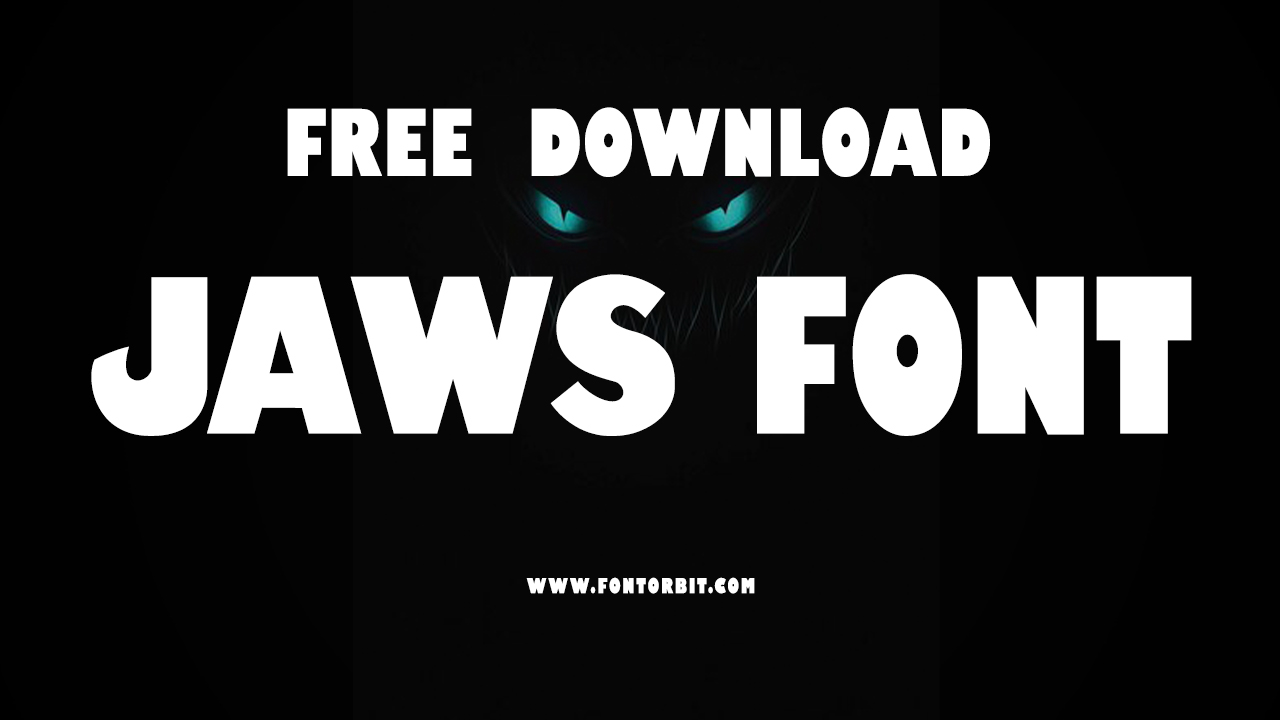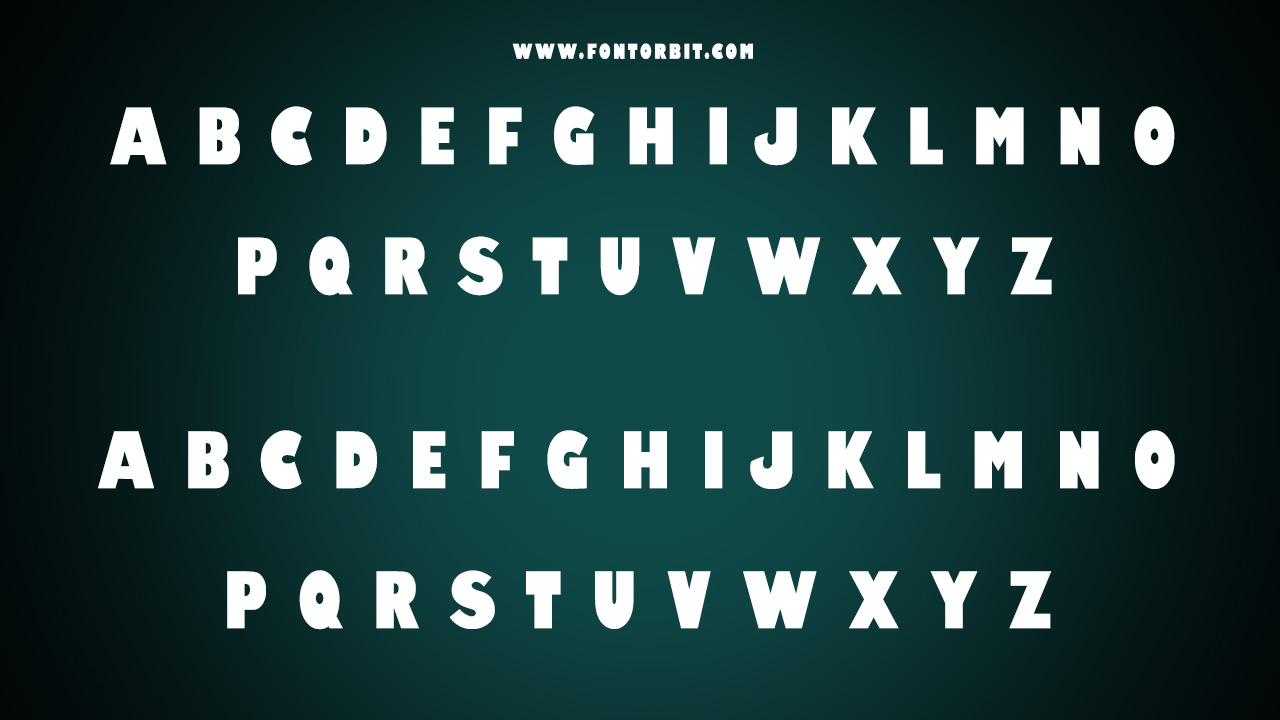
The Jaws Font is inspired by the iconic 1975 thriller film Jaws, directed by Steven Spielberg. Known for its suspenseful storyline about a man-eating great white shark terrorizing a beach community, the film has left an indelible mark on cinema history.
Types In The Jaws Font Family
Amity Jack font
The font associated with the film’s title is called Amity Jack, designed by AJ Paglia. This typeface features uppercase letters, numbers, and common punctuation marks, making it versatile for various design needs.
The Jaws Font is perfect for adding a thrilling touch to various creative projects. Its bold and distinctive design makes it suitable for:
- Movie posters
- Horror-themed graphics
- Branding for events
- Merchandise
- Promotional materials
- Fan art
- Collectibles
The Jaws Font Found In Use
The Jaws Font is widely recognized and often used in designs that aim to capture the suspense and horror of the film. Its striking style enhances branding and visual storytelling in various projects.
1.What Is The Jaws Font?
The Jaws Font is inspired by the title lettering of the film Jaws, featuring a bold design similar to the Amity Jack typeface.
4.What Are The Characteristics Of A Good Jaws Font?
A good Jaws Font should feature bold, recognizable lettering, a dramatic style, and compatibility with various design applications.
6.What Are Horror-Themed Fonts Really?
Horror-themed fonts are typefaces that evoke suspense or fear, often featuring bold, jagged, or distorted characteristics to enhance the eerie atmosphere in designs.